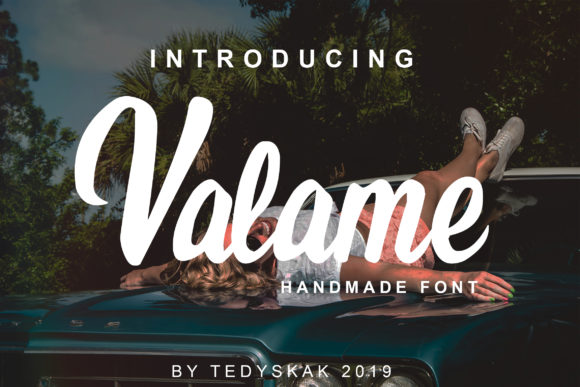
Valame Font
**Introducing Valame: The Font That Embraces Your Inner Cheerleader**
Prepare to unleash a burst of joy and creativity with Valame, the vibrant script font that's ready to ignite your designs with a touch of whimsy.
In every curve and stroke of Valame, you'll find a dash of playfulness that's guaranteed to invigorate your projects. Whether you're crafting invitations for a special celebration or adding a touch of magic to social media posts, Valame is the perfect companion to express your exuberant spirit.
With its dynamic and lively character, Valame transports you to a world of endless possibilities. This font is not just a collection of letters; it's a spark that will ignite your imagination and empower you to create designs that dance with delight. Its bold yet elegant strokes evoke a sense of authenticity and make every word you write shine with character.
So go ahead, embrace the infectious energy of Valame and let your creativity soar to new heights. It's time to inject your designs with a generous dose of cheer and make a lasting impression with every letter you craft.